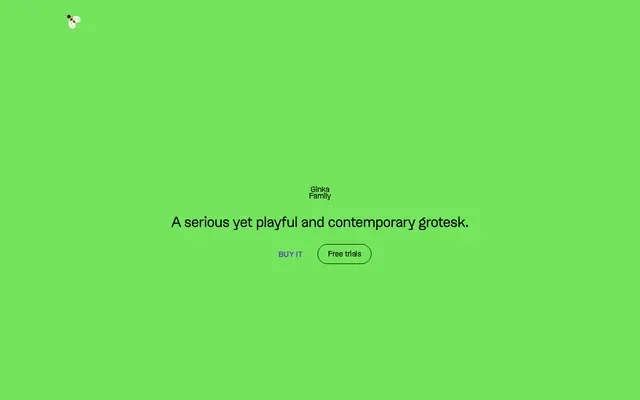
Ginka
Lift Type · Julie Soudanne · 2023
A French grotesque by Julie Soudanne with pronounced ink traps, rebounded curves and enough character to work at both text sizes and large display settings.
Designed by Julie Soudanne and released in 2023, Ginka comes in five weights from Light to Bold, each with a matching italic, totalling ten styles. The design combines deep ink traps and pinched strokes with quirky punctuation and resilient curves, giving it a dual personality that holds up in body text whilst asserting itself at poster scale. Broad Latin Extended language support covers over 45 languages across European scripts.
Ginka is described explicitly as a grotesk, with pronounced ink traps, rebounded curves and a pinched contrast that sit firmly within the grotesque sans-serif tradition rather than geometric or humanist variants.